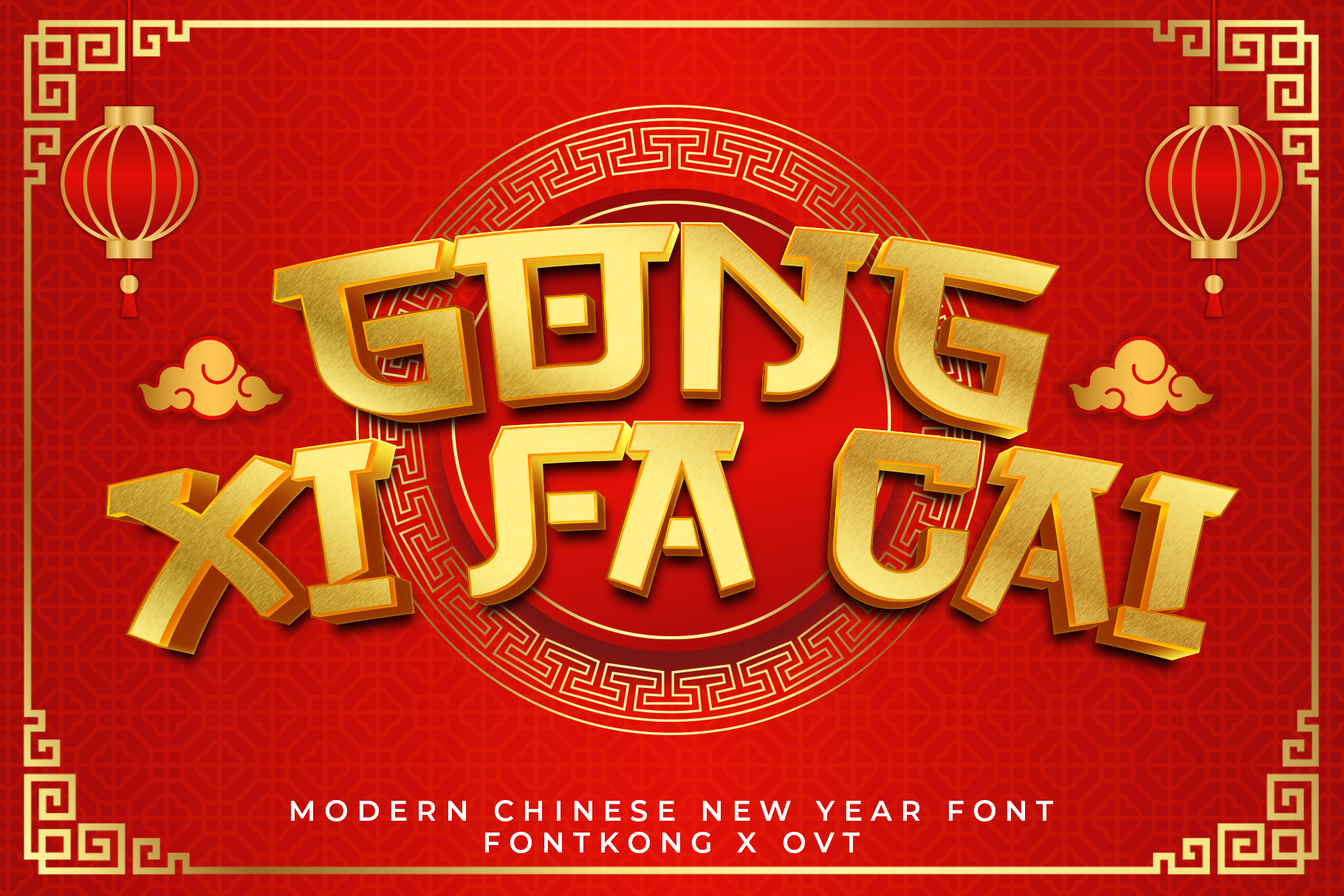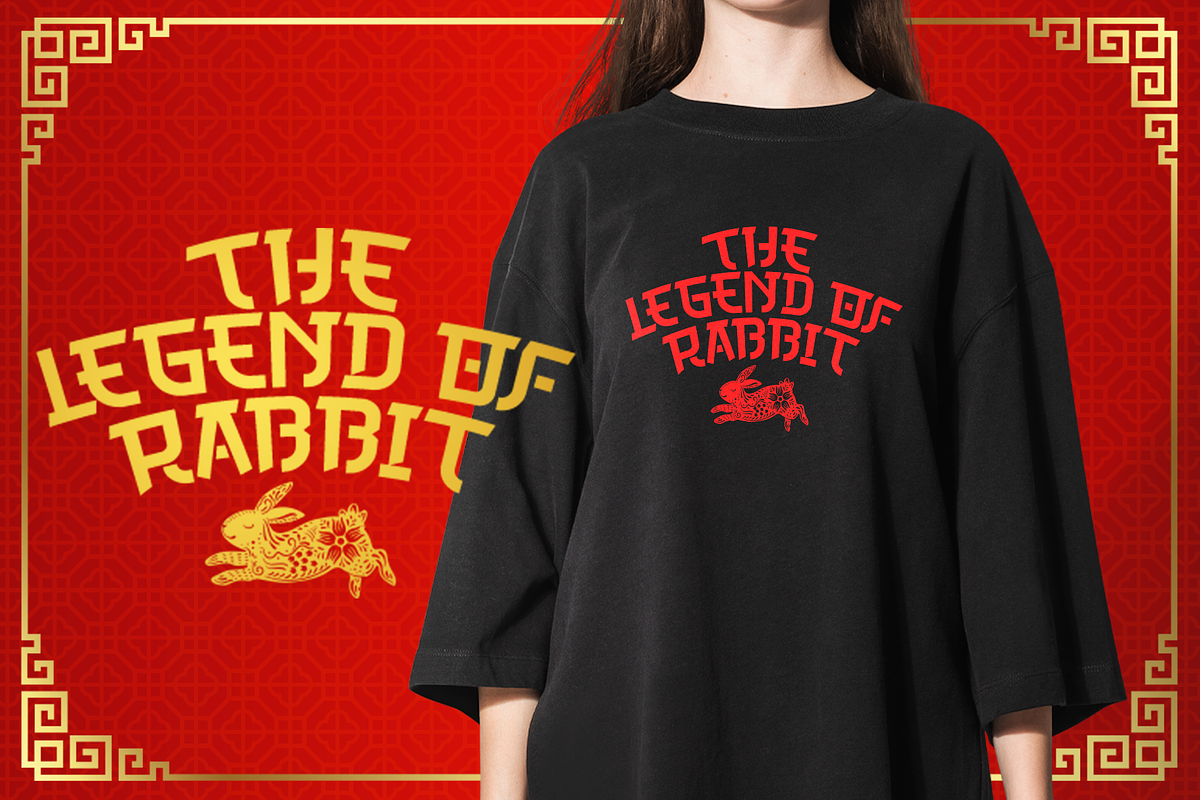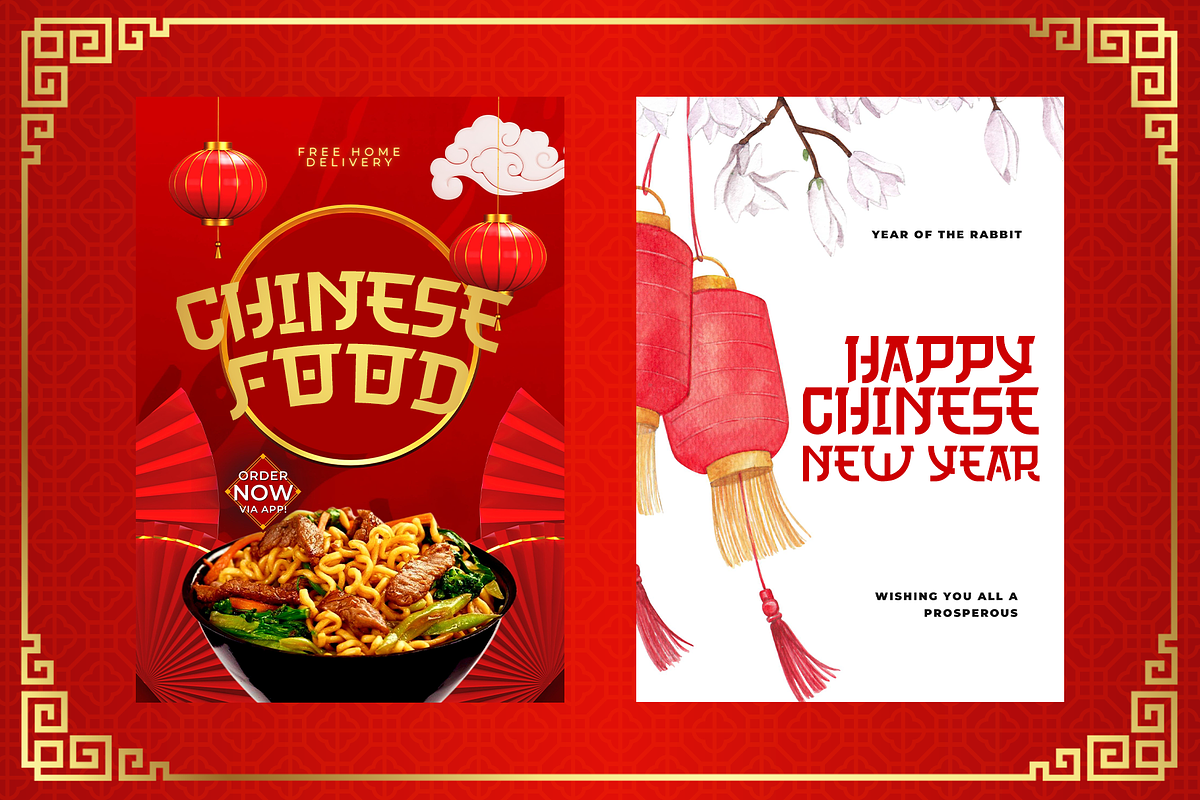
Gong Xi Fa Cai - Modern Chinese Font
Gong Xi Fa Cai - Modern Chinese New Year Font
Introducing "Gong Xi Fa Cai," a modern font designed to celebrate the Chinese New Year with elegance and style. This typeface seamlessly blends traditional Chinese aesthetics with contemporary design, perfect for capturing the festive spirit of the Lunar New Year.
Ideal for holiday greeting cards, festive banners, event invitations, social media posts, and cultural branding, Gong Xi Fa Cai ensures your text conveys both prosperity and modern sophistication. Each character is thoughtfully crafted to maintain the cultural essence of Chinese script while offering a sleek, modern look.
Gong Xi Fa Cai includes a comprehensive set of Chinese characters, numerals, and punctuation marks, providing versatility for various design applications. Its unique combination of tradition and modernity makes it an excellent choice for designers looking to create impactful and culturally resonant designs.
Celebrate the Lunar New Year with Gong Xi Fa Cai, a font that brings a fresh, stylish touch to traditional Chinese celebrations.